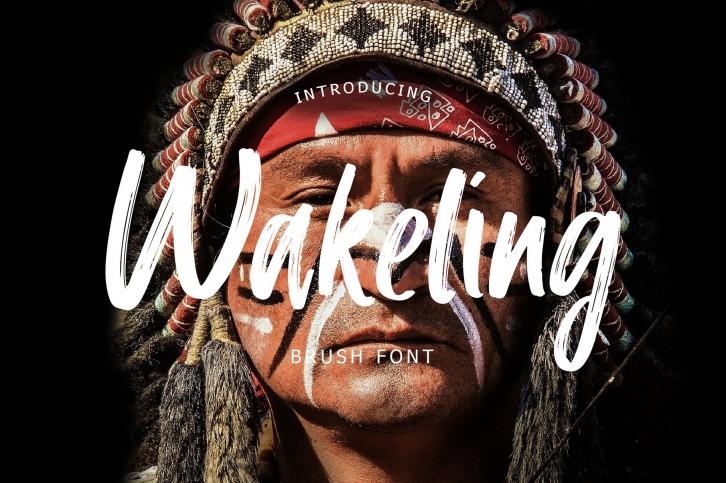
Wakeling Brush is a gorgeous font that was realeased on June 18, 2020. The font can be used in many style contexts and design environments. Perfect for invitations, magazines, websites, logos, and more! It was designed by Giant Design and the file size is 18.11 MB. Thanks for checking out this font!